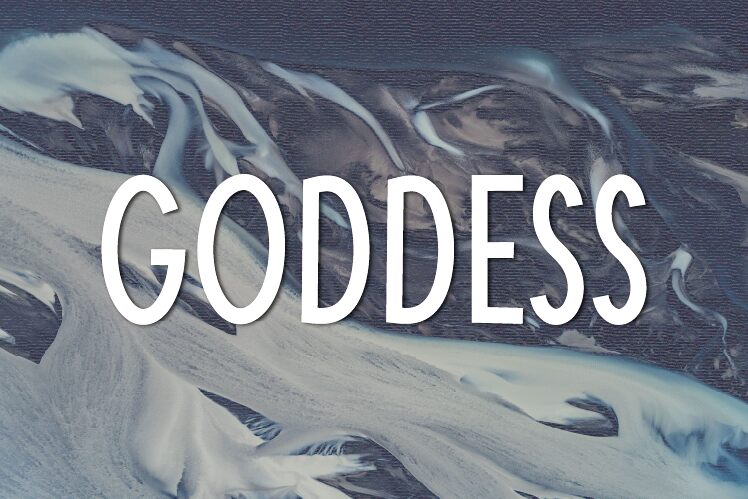
Goddess font family by designer Hanna Bie oozes elegance in a fancy style across 2 font styles. This font is modern and sophisticated with a clean and balanced outlook that is both formal and contemporary.
Whether you are a master of graphic design or are just getting to know the field, you will definitely agree that this free font makes for an excellent and reliable asset for online and print projects. Use it to give your branding, posters, greeting cards, and printed publications a different fresh and new style all while leaving a positive impression. Deliver with power resume designs and business cards that definitely stand apart from the traditional ones.